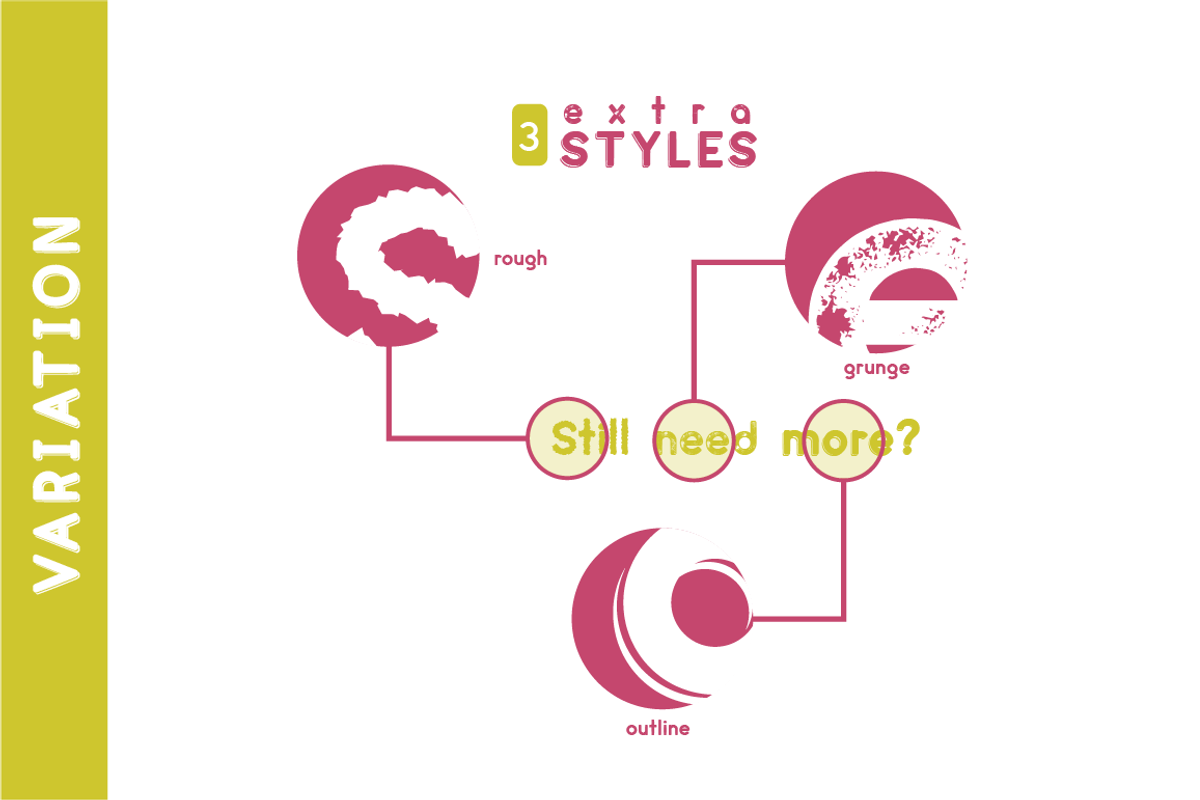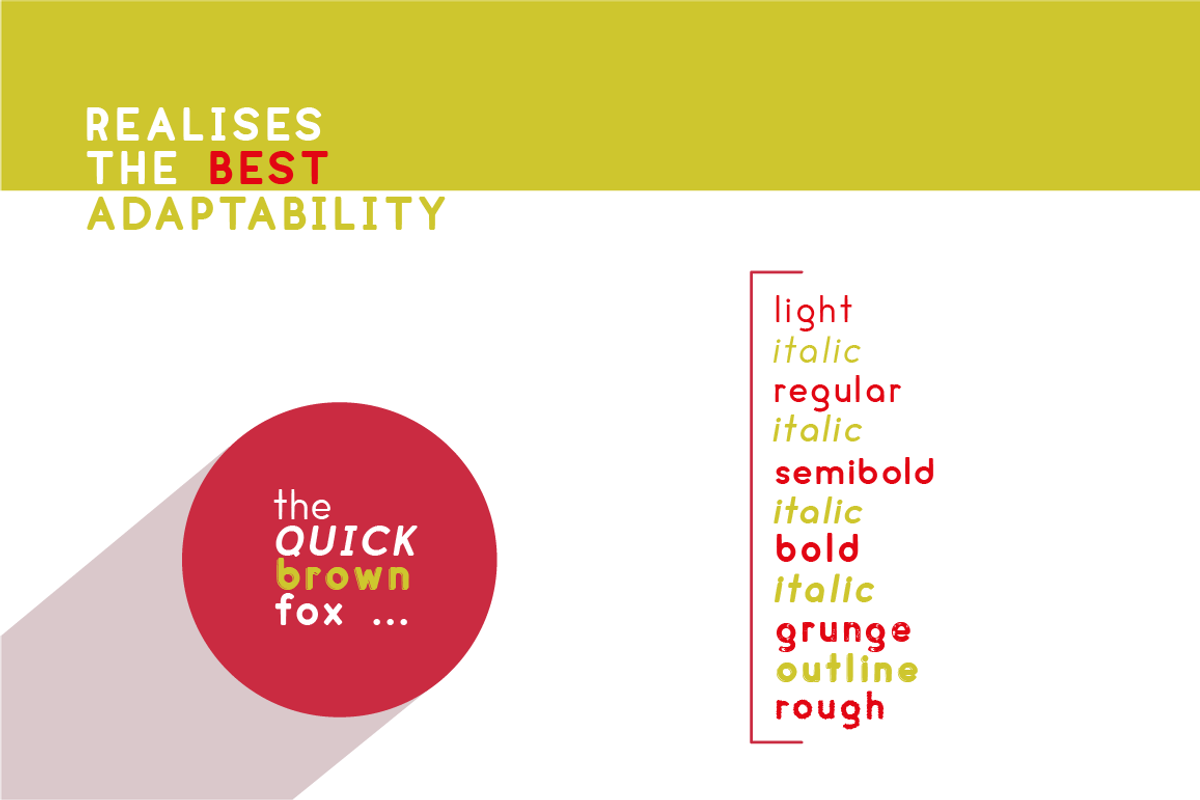
cream - complete font family
cream - complete font family by Shaped Fonts is a font selected for branding, posters, packaging, typography.
- Cream is available in several styles and a full family package including all 11 styles.
- The full version also has optimized ligatures for fb, fk and similar ones.
- cream Light
- cream Light italic
- cream Regular
- cream Regular italic
- cream Semibold
- cream Semibold italic
- cream Bold
- cream Bold italic
- cream Outline Heavy
- cream Grunge